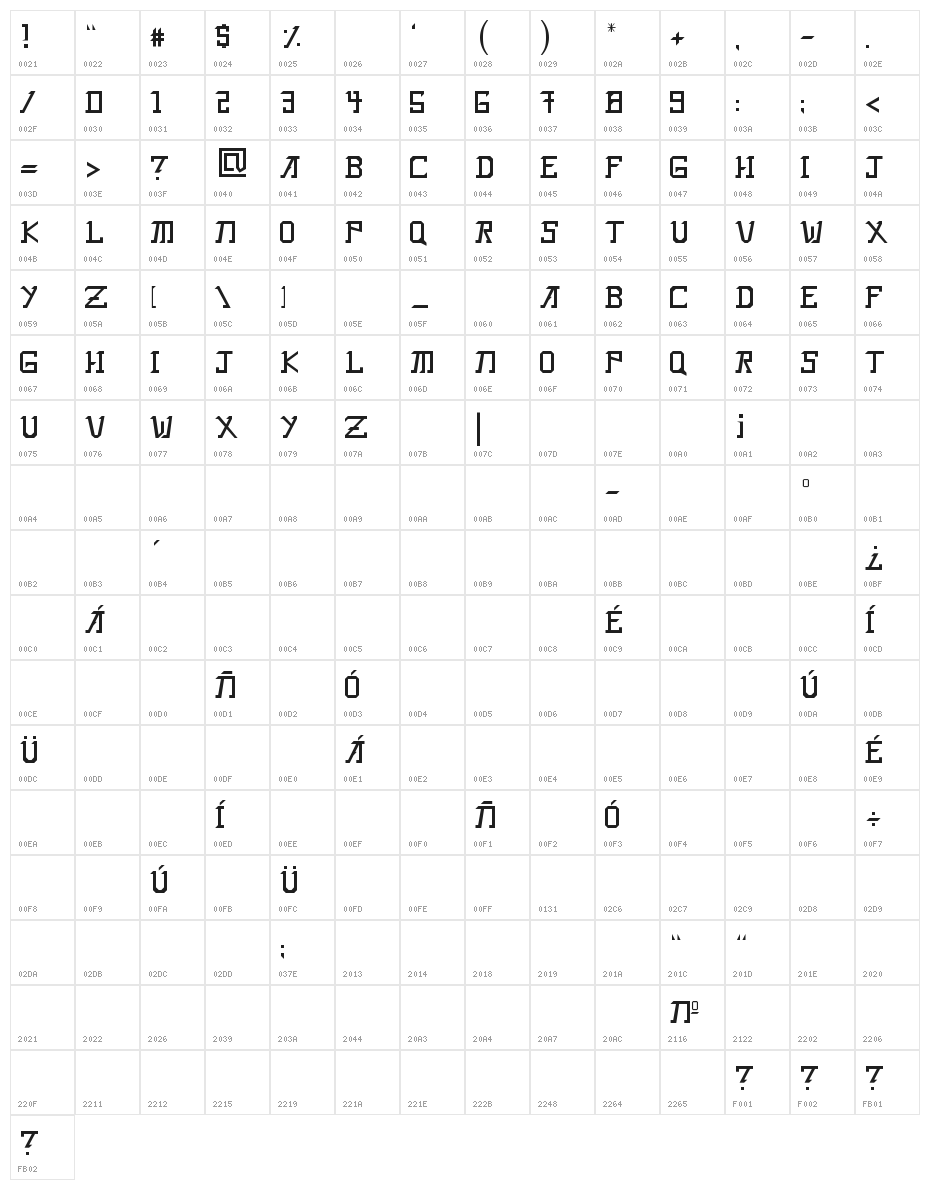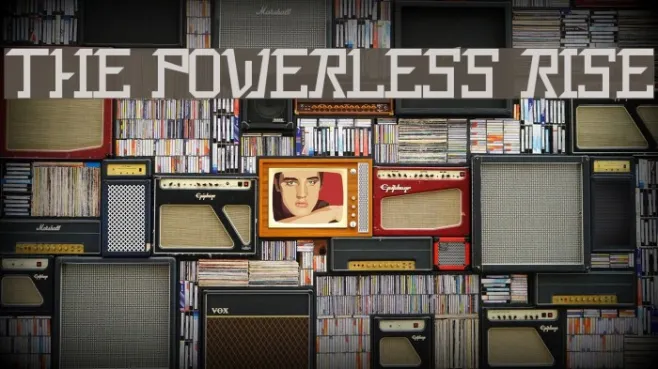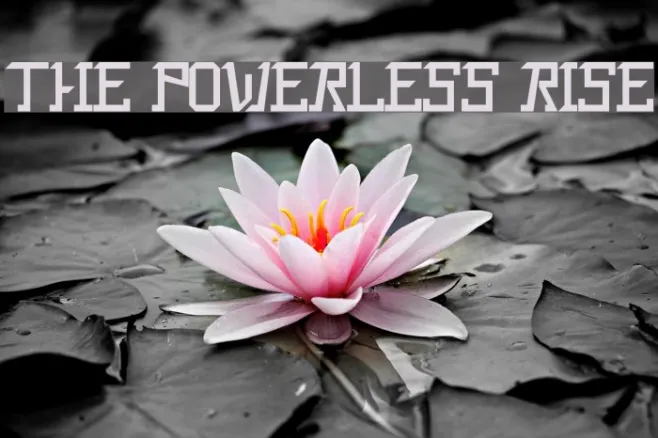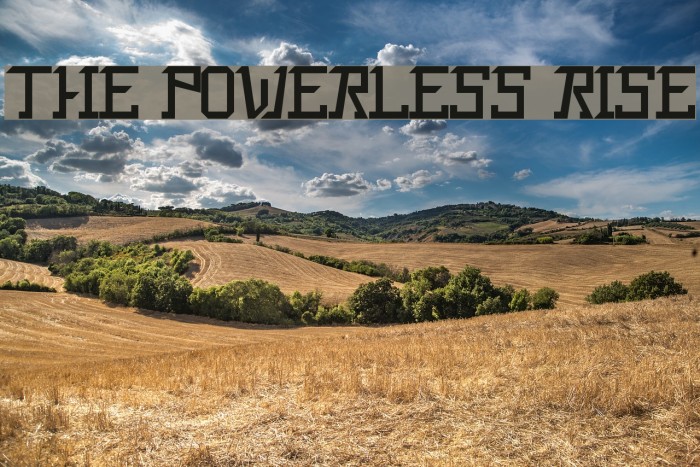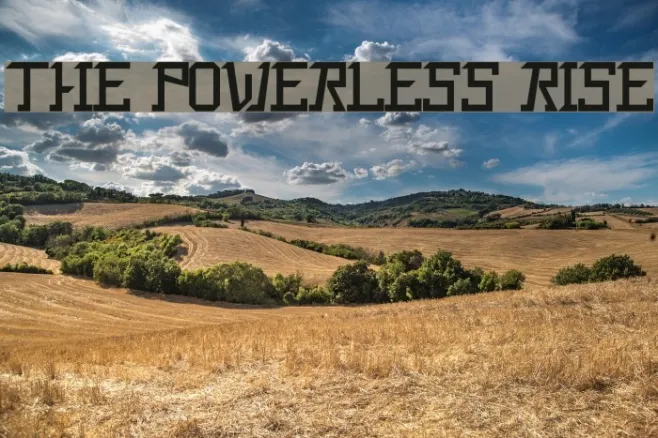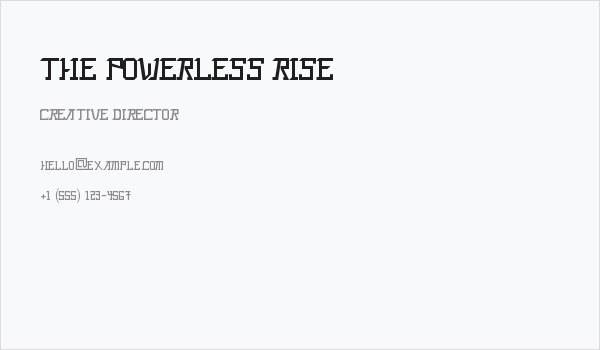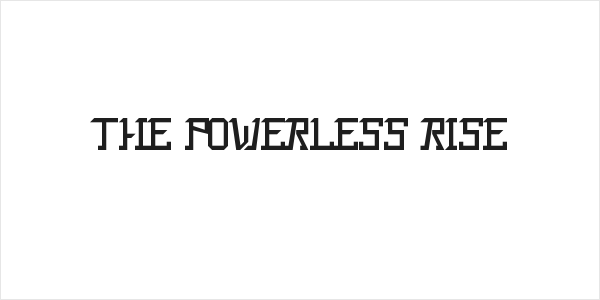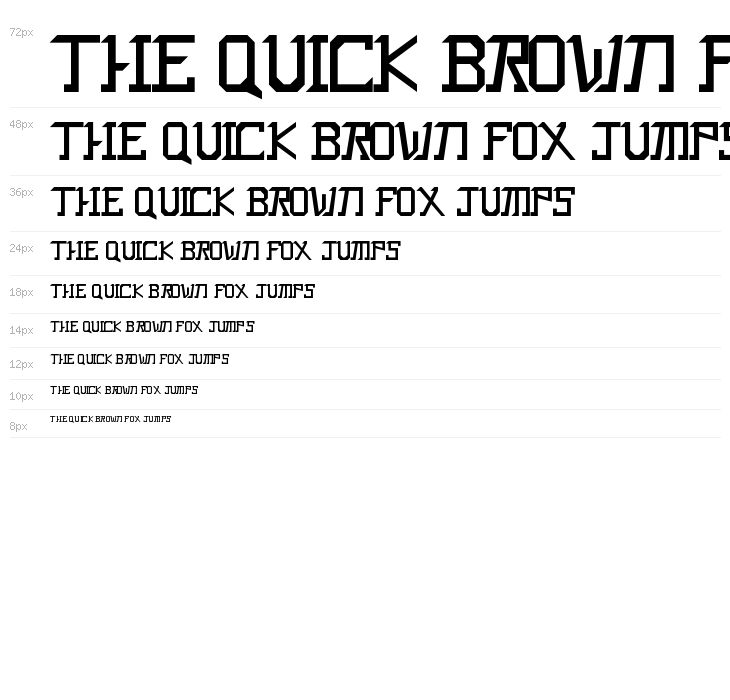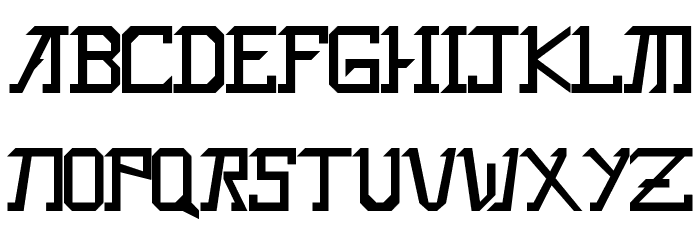
The Powerless Rise Font
The Powerless Rise Description
This font features a bold and angular design, characterized by sharp edges and geometric shapes. The letters are constructed with a futuristic and industrial aesthetic, giving them a distinct and edgy appearance. The uppercase and lowercase letters maintain a consistent style, with a strong emphasis on straight lines and right angles. The numbers and special characters follow the same design principles, ensuring a cohesive look across all glyphs. This font's unique style makes it stand out, suitable for projects that require a modern and impactful visual identity.